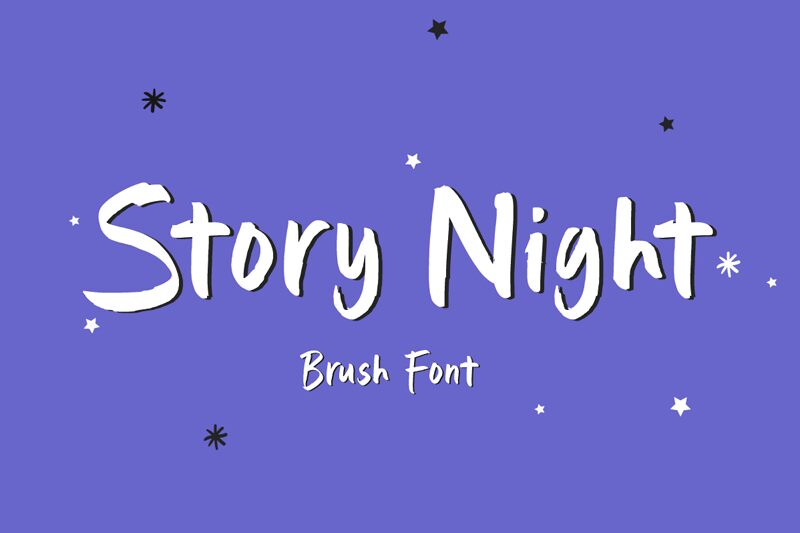
Story Night, a creation by Fikryal Studio, captures the essence of a handcrafted tale with its brush and marker style strokes that evoke the spontaneity of an artist's flair. The font dances with creativity, as each character boasts bold strokes and an organic texture that seems to tell its own whimsical story. Its dynamic flow is reminiscent of an intimate narrative shared under the stars, making it perfect for projects that require a touch of personality and warmth.
Ideal for branding, packaging, or evocative editorial work, Story Night brings a vibrant yet personal touch to any design. It excels in contexts where the human touch is celebrated-book covers, heartfelt invitations, or artisanal product labels all benefit from its expressive charm.